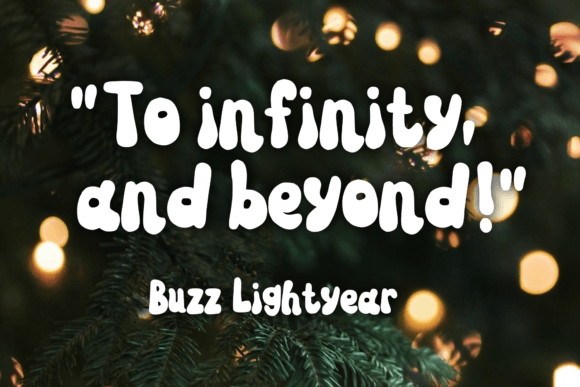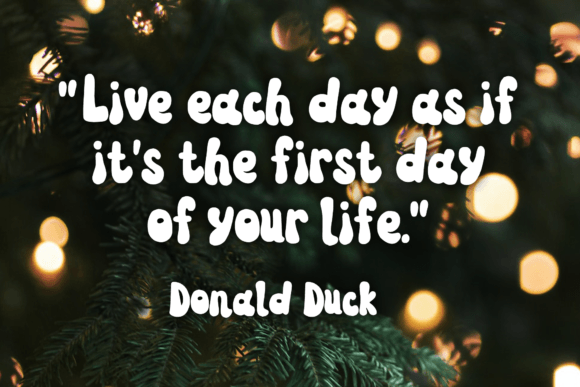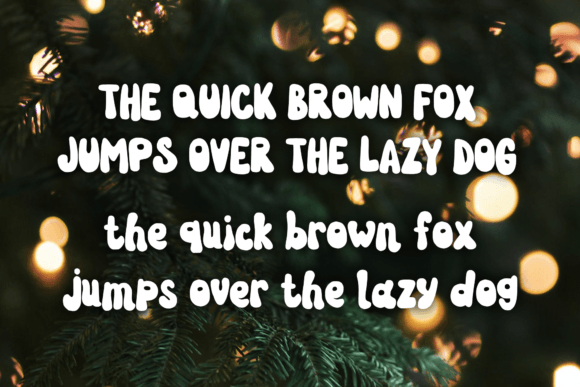
Santa Claus Font
Add Fun and Playfulness with Santa Claus Font
The Santa Claus font is a bold and playful handwritten script that brings festive fun and versatility to your creative projects. Whether you’re designing t-shirts, kids’ book covers, greeting cards, stickers, posters, or any design that needs a casual and lively touch, Santa Claus font adds charm and personality.
Perfect for Apparel, Kids’ Books, and Holiday Designs
The Santa Claus font works beautifully across a wide range of applications such as clothing designs, children’s literature, holiday greeting cards, promotional materials, and party invitations. Its bold strokes and playful style give your projects a joyful and engaging feel.
A Handwritten Script with Bold, Versatile Style
Each character in the Santa Claus font is crafted to provide bold, readable strokes with a casual vibe. The font’s design balances festive energy with clear readability, making it suitable for headlines, logos, and decorative accents alike.
Despite its bold and playful style, the Santa Claus font maintains excellent readability across various sizes. Whether used for large titles or smaller text elements, it balances clarity with festive style, making it perfect for many creative projects.
Make Your Designs Stand Out with Holiday Cheer
Typography plays a key role in setting the mood of your designs, and Santa Claus adds a lively and joyful spirit. If you want to elevate your projects with a bold and fun handwritten script, download the Santa Clausfont today and create memorable, festive visuals.